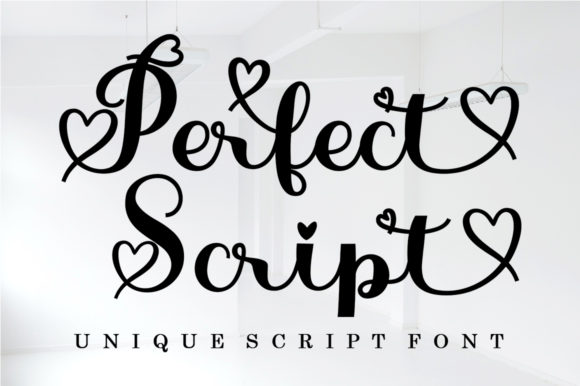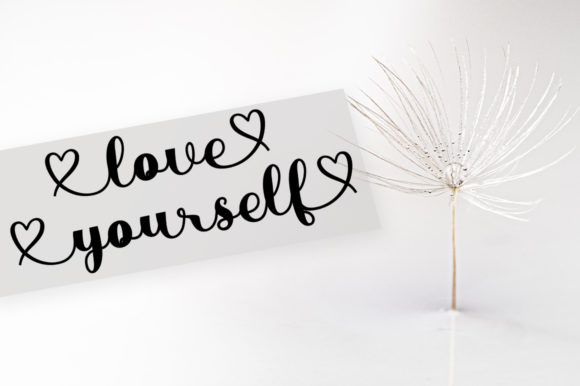
About Perfect Script Font
Perfect Script feels equally romantic and whimsical. It looks lovely on wedding invitations, thank you cards, quotes, greeting cards, logos, business cards and every other design which needs a handwritten touch.